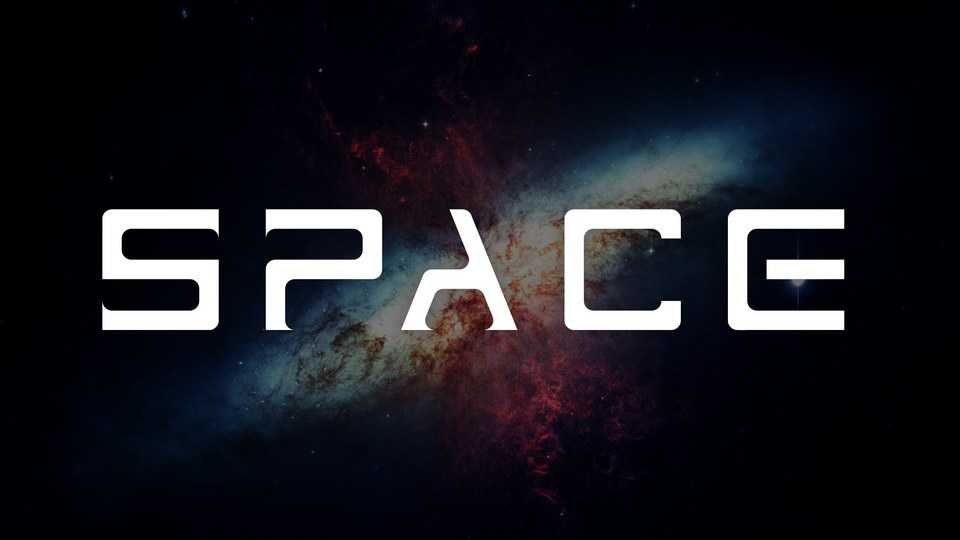
Downloa ImPerfect 23 font, a creative display typeface combining a squre shapes ans smooth forms. ImPerfect 23 font is great for posters, headlines and banner, prints and more.
Designer: Giorgi Lashkarashvili